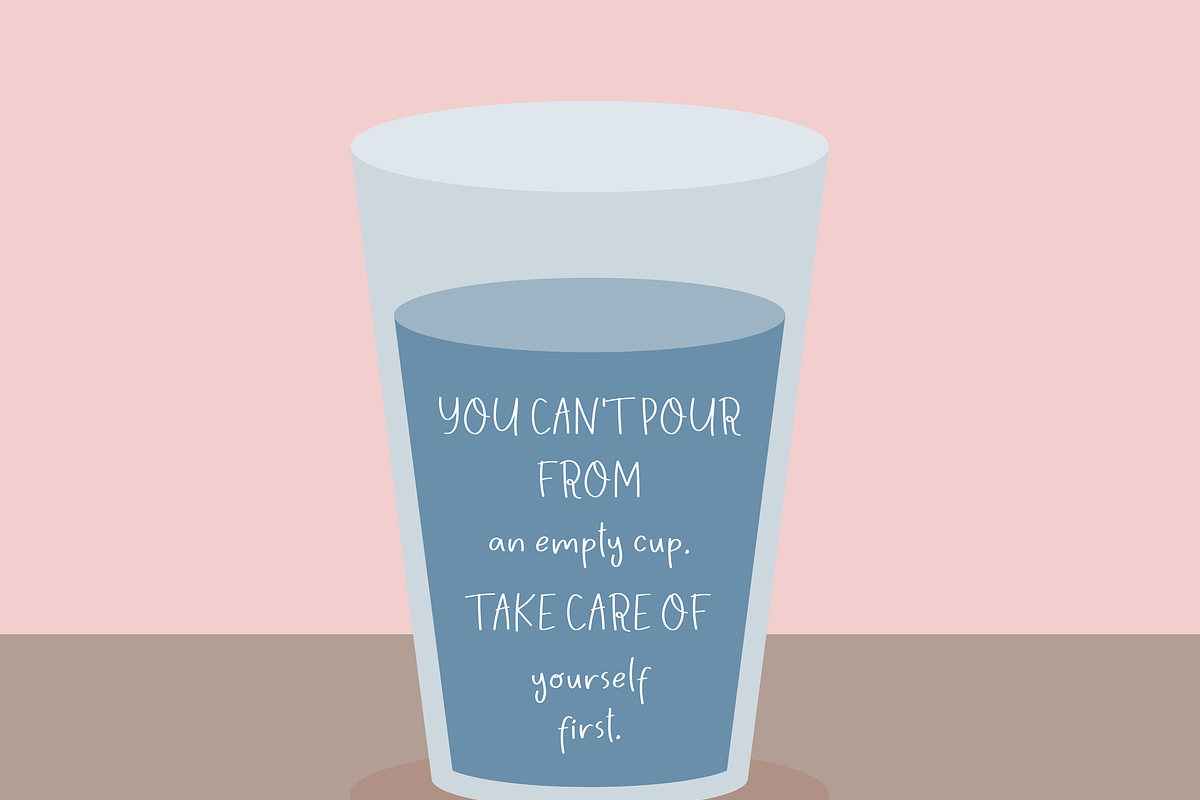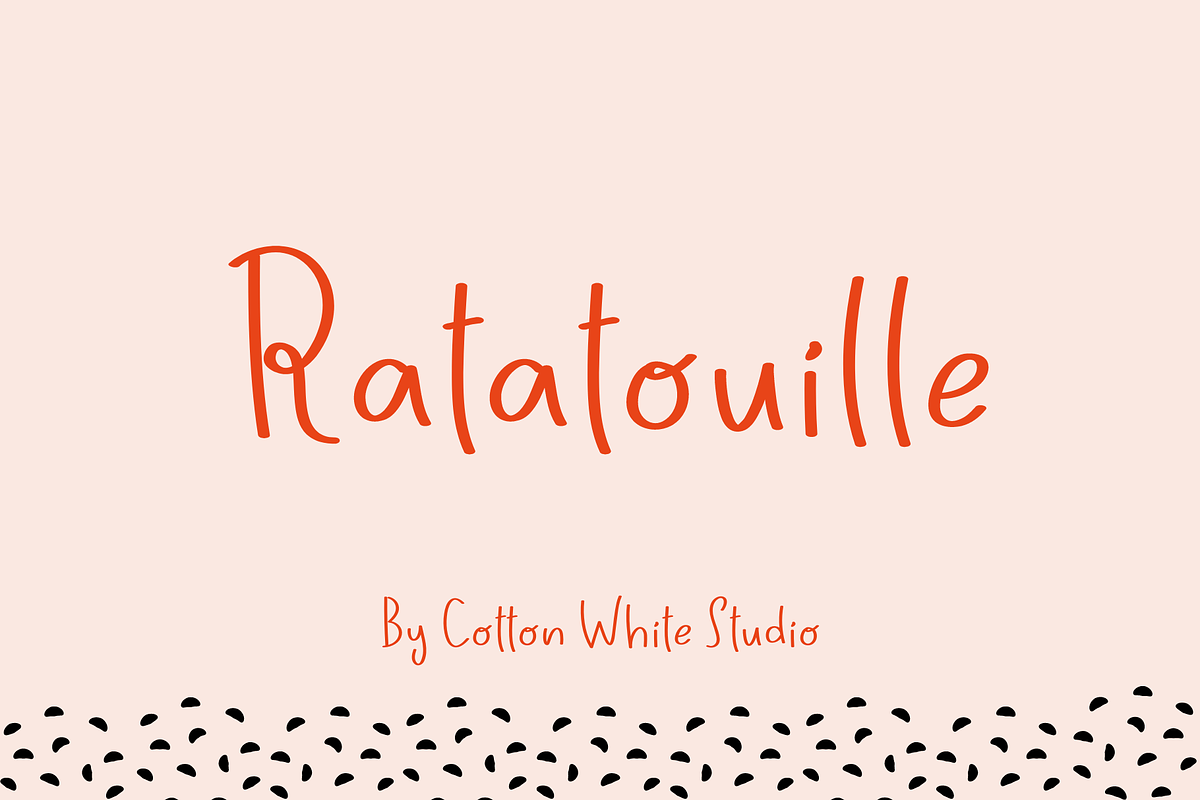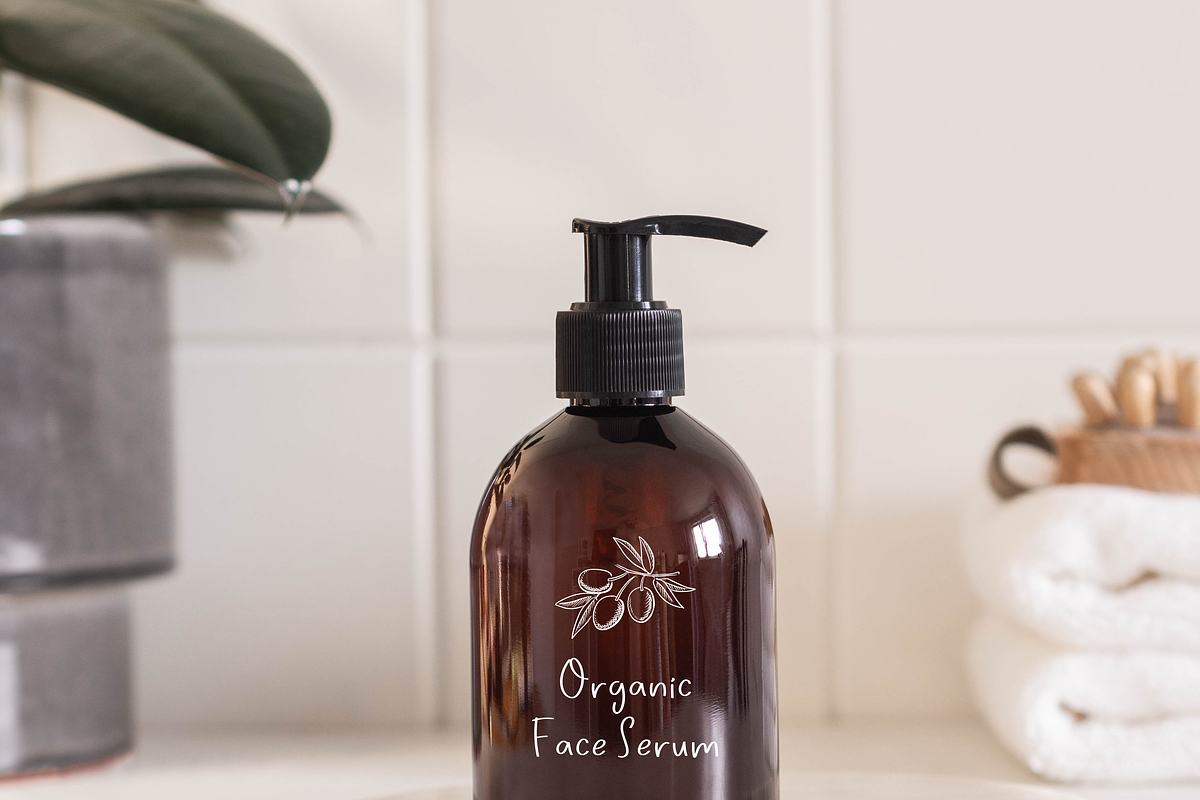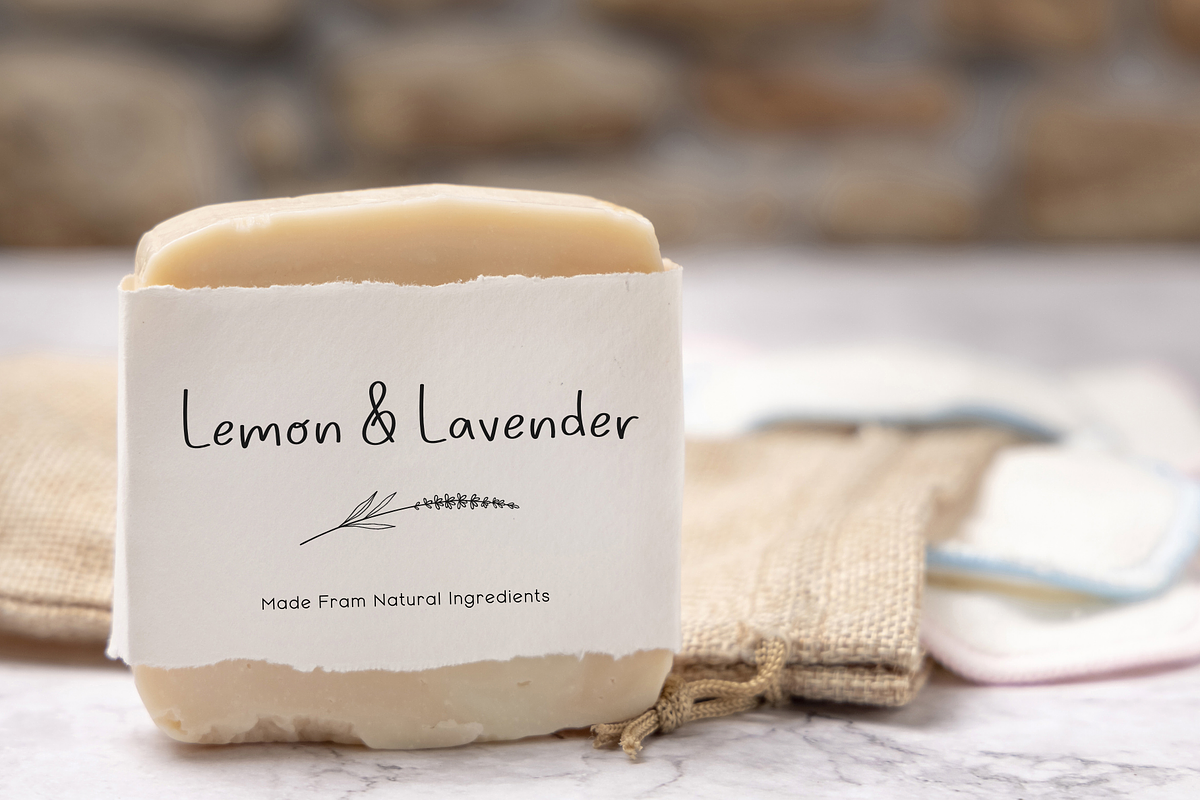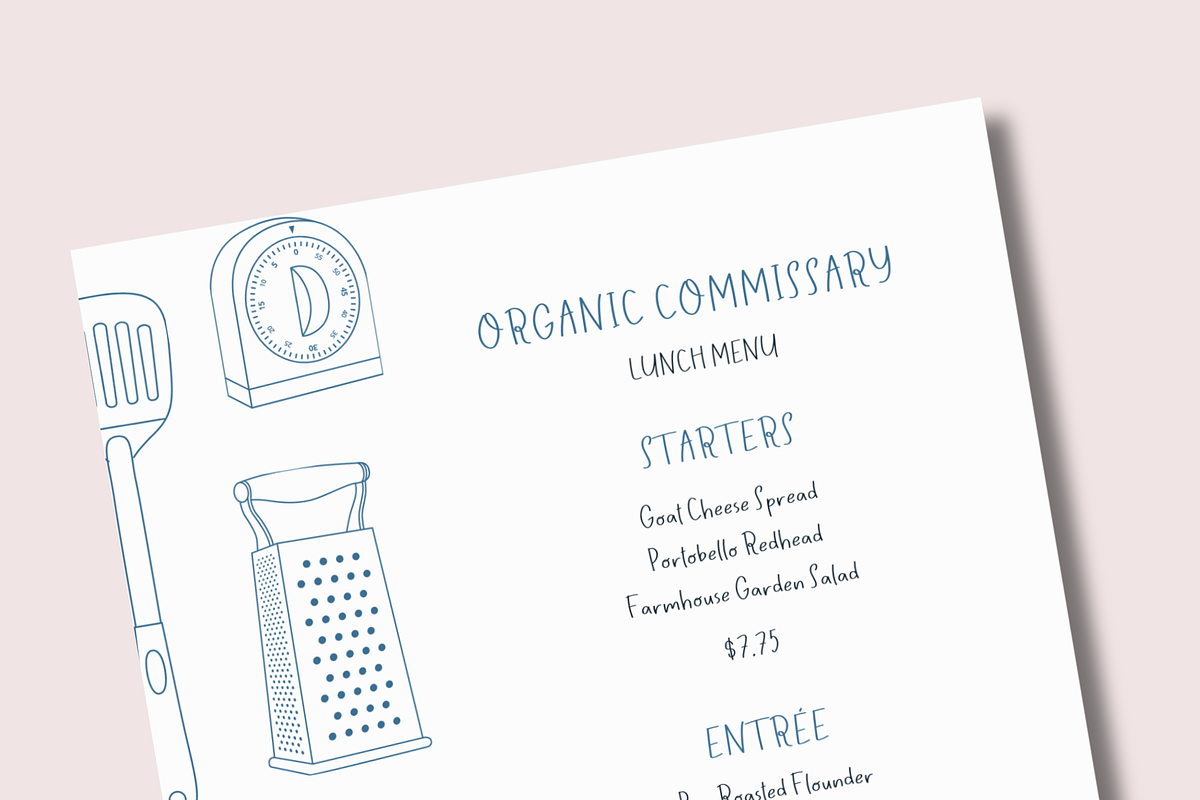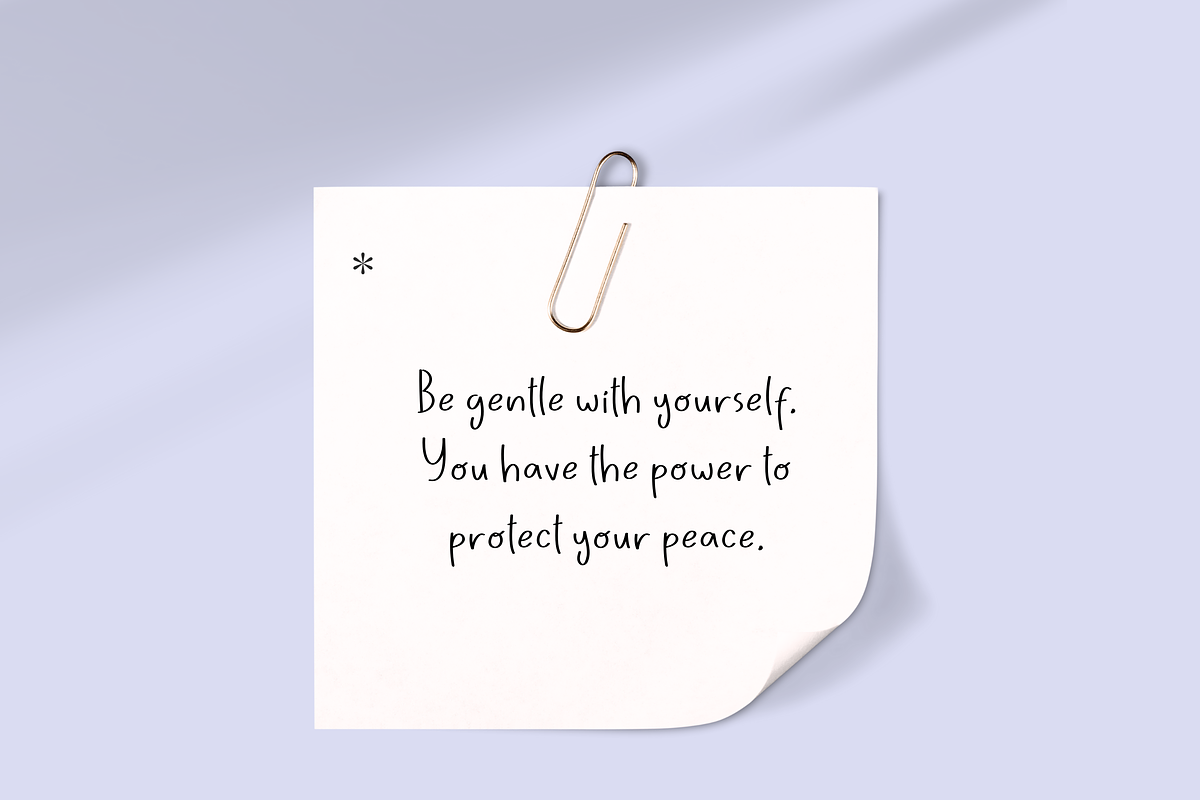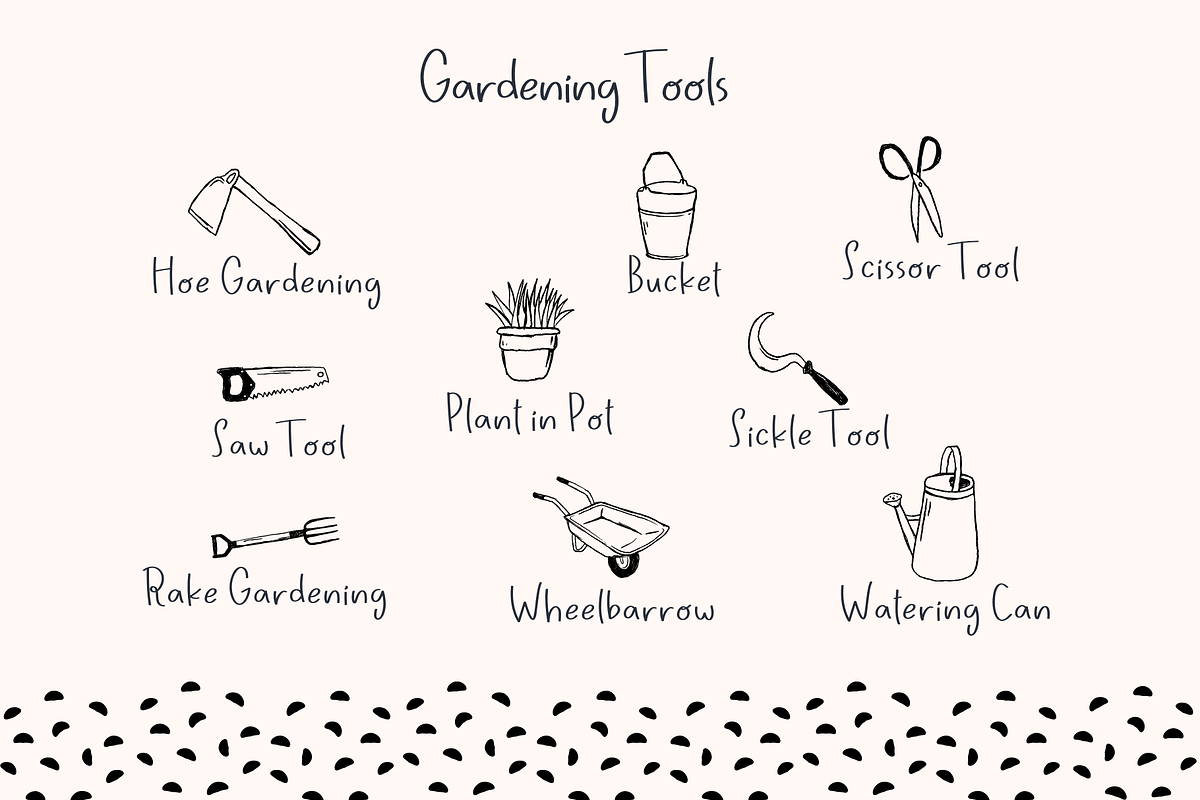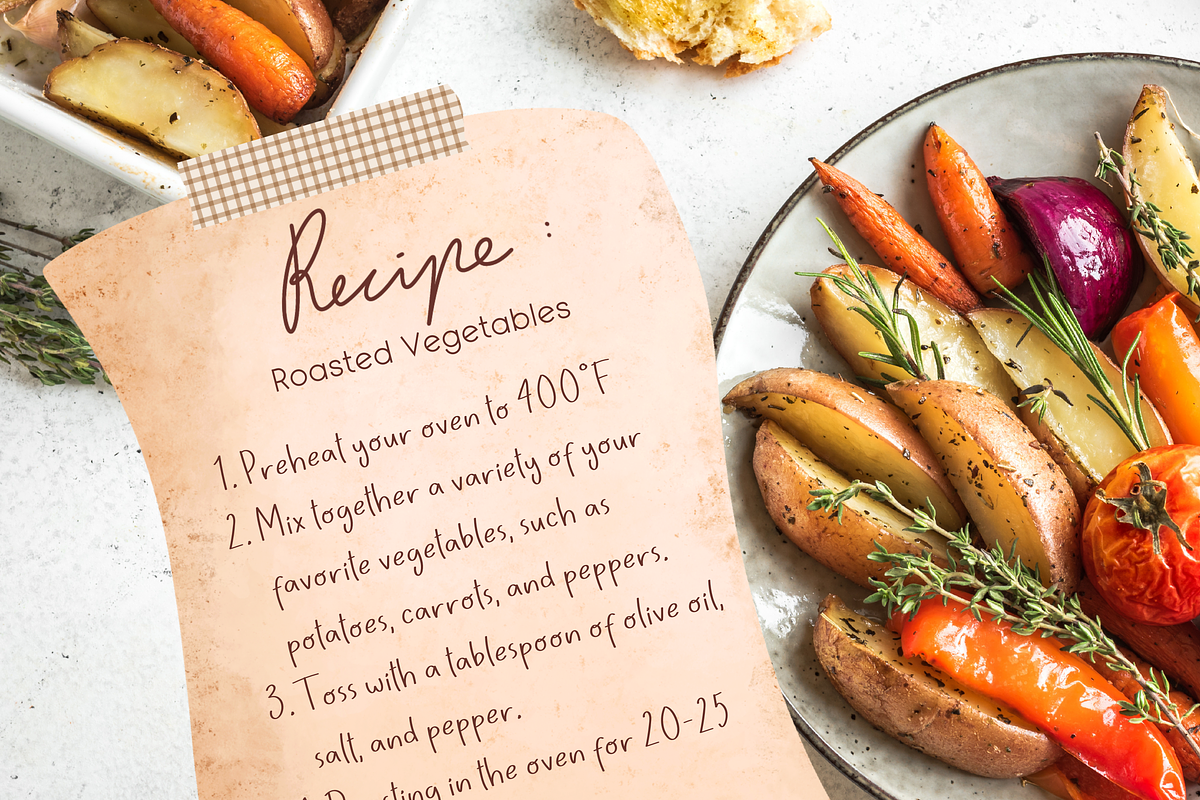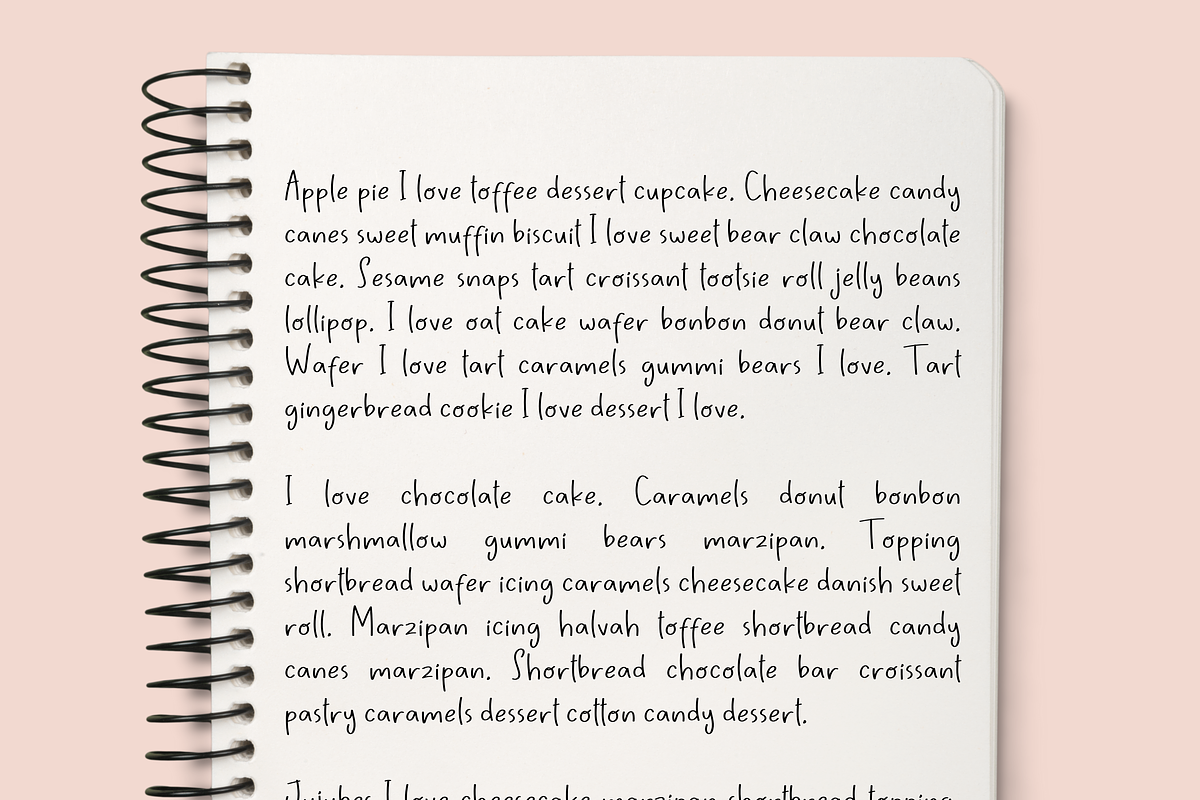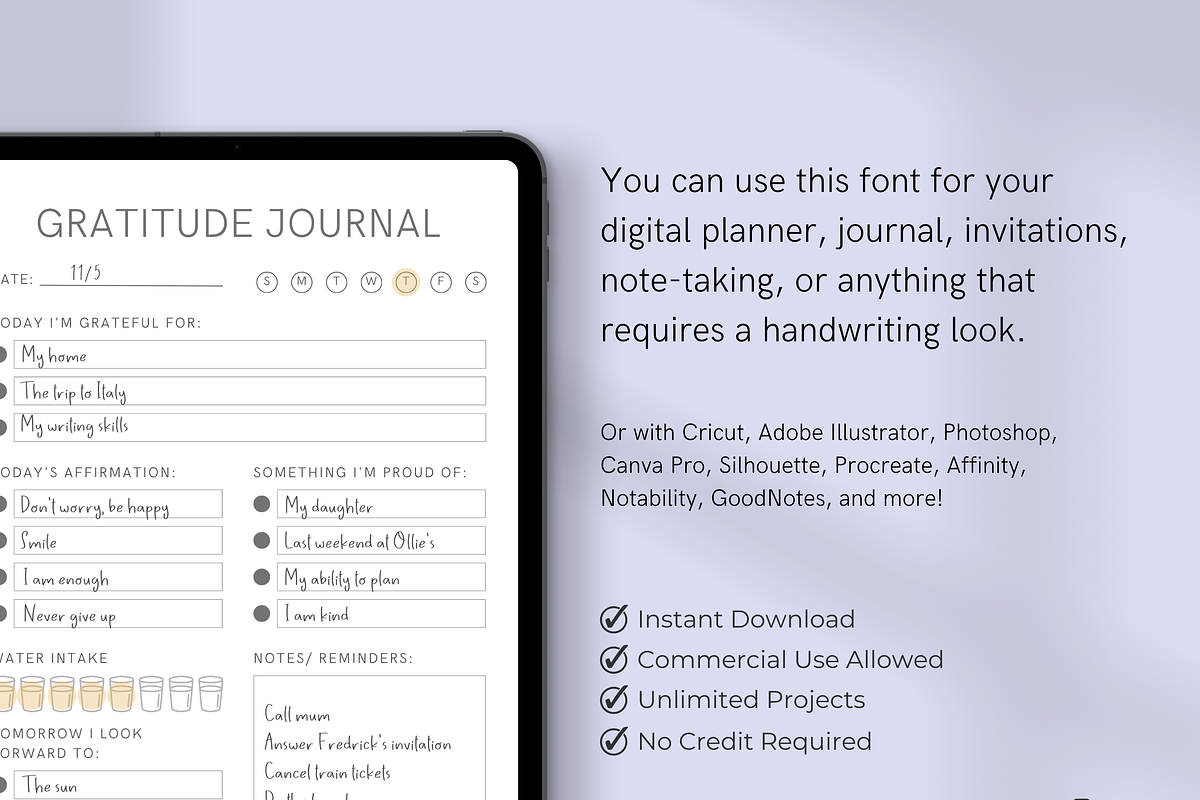
Ratatouille
You can use this font to jazz up your digital planner, journal, invitations, note-taking, or anything that requires a handwriting look. Or use it with your projects on in Cricut, Adobe Illustrator, Photoshop, Canva Pro, Silhouette, Procreate, Affinity, Notability, GoodNotes, and more!
Characters: a b c d e f g h i j k l m n o p q r s t u v w x y z A B C D E F G H I J K L M N O P Q R S T U V W X Y Z 0 1 2 3 4 5 6 7 8 9 . , : ; ! ? ' " ‘ ’ “ ” @ _ & # % * + - × ÷ = ~ / ( ) { } [ ] $ ¢ € £ ¥ © ® ™
À Á Â Ã Ä Å Æ Ç È É Ê Ë Ì Í Î Ï Ñ Ò Ó Ô Õ Ö Ø Œ Ù Ú Û Ü Ý Ÿ Þ Ð Ł Š Ž ¡ ¿ « » ‹ › ¤ • ° ± − ¶ § ‰ ⁄ – — à á â ã ä å æ ç è é ê ë ì í î ï ñ ò ó ô õ ö ø œ ù ú û ü ý ÿ þ ð ł š ž ß ı ^ ˆ ˇ ¨ ˜ ` ´ ¸ ‛ ‚ „ … | † ‡